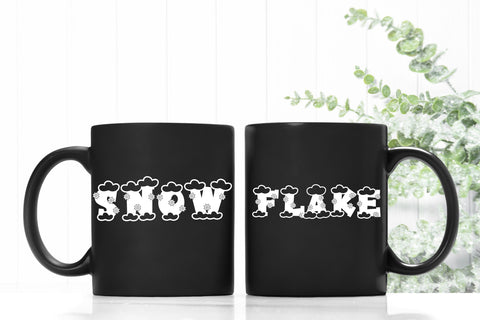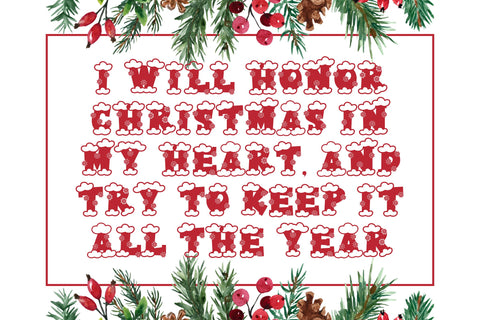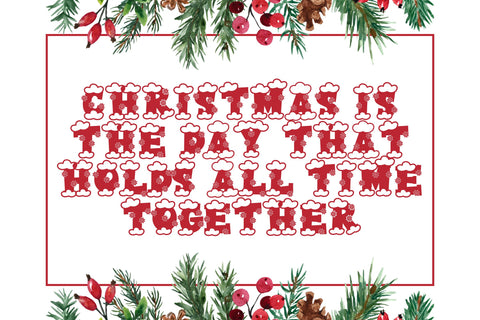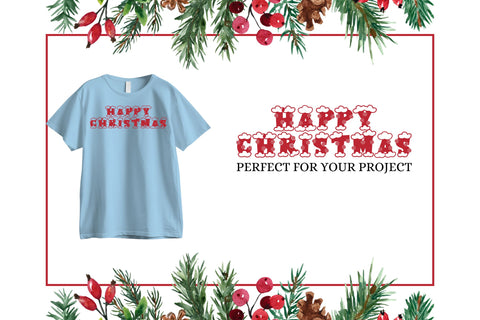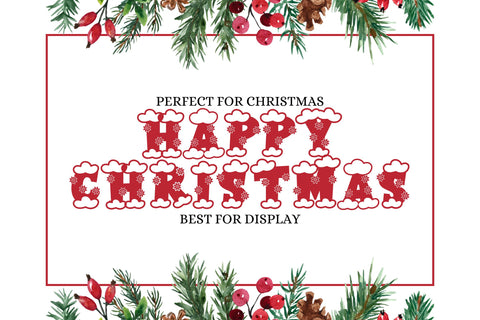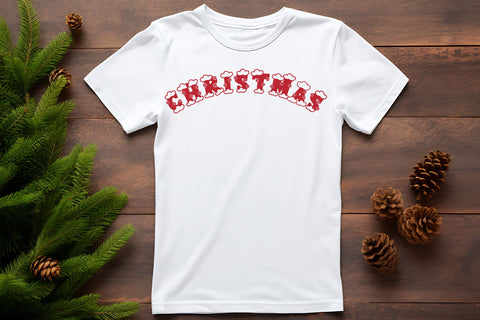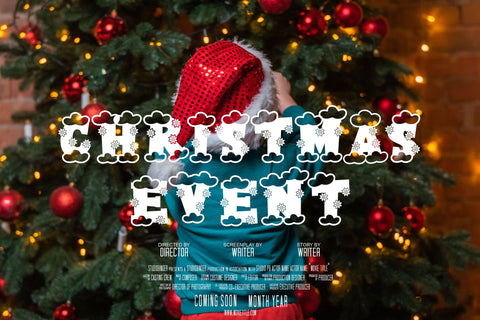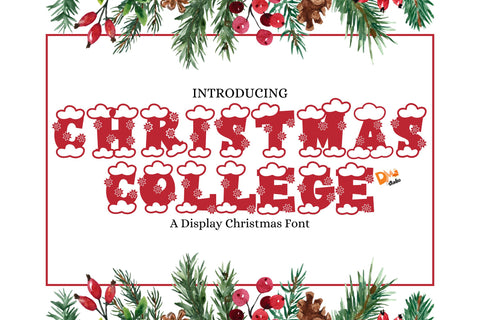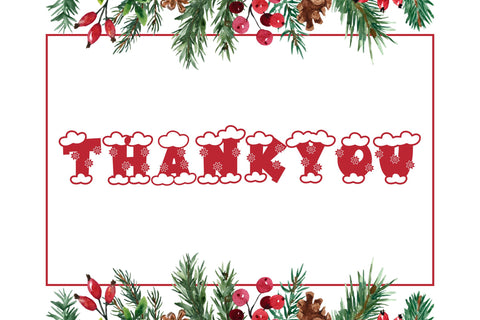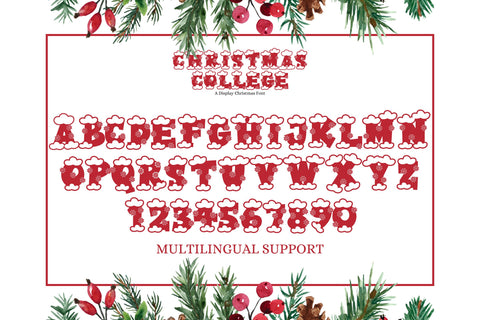
Christmas College
Christmas College – Festive & Bold Display Font
Christmas College is a fun and bold display font that blends a classic collegiate style with a festive holiday twist. Perfect for Christmas-themed projects, holiday branding, greeting cards, apparel designs, and seasonal decorations, this font brings a cheerful and spirited touch to your designs. Its strong letterforms combined with playful holiday elements make it ideal for eye-catching typography.
- Festive Collegiate Design: Classic varsity-style letters with a holiday-inspired twist.
- Perfect for Christmas & Holiday Projects: Ideal for greeting cards, apparel, decorations, and seasonal branding.
- Bold & Eye-Catching Aesthetic: Strong, structured typography with a fun holiday feel.
- Complete Character Set: Includes uppercase, lowercase, numbers, punctuation, and multilingual support.